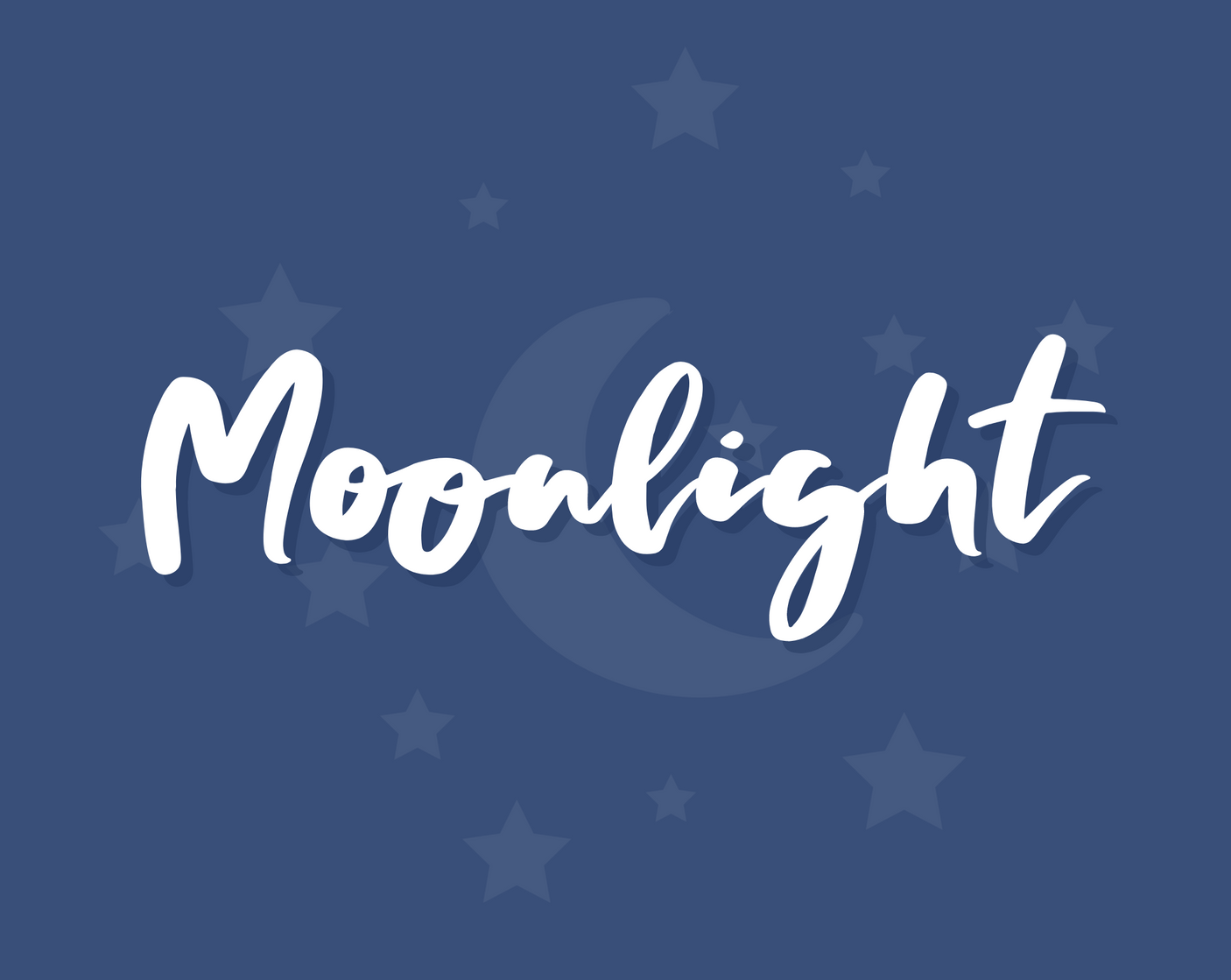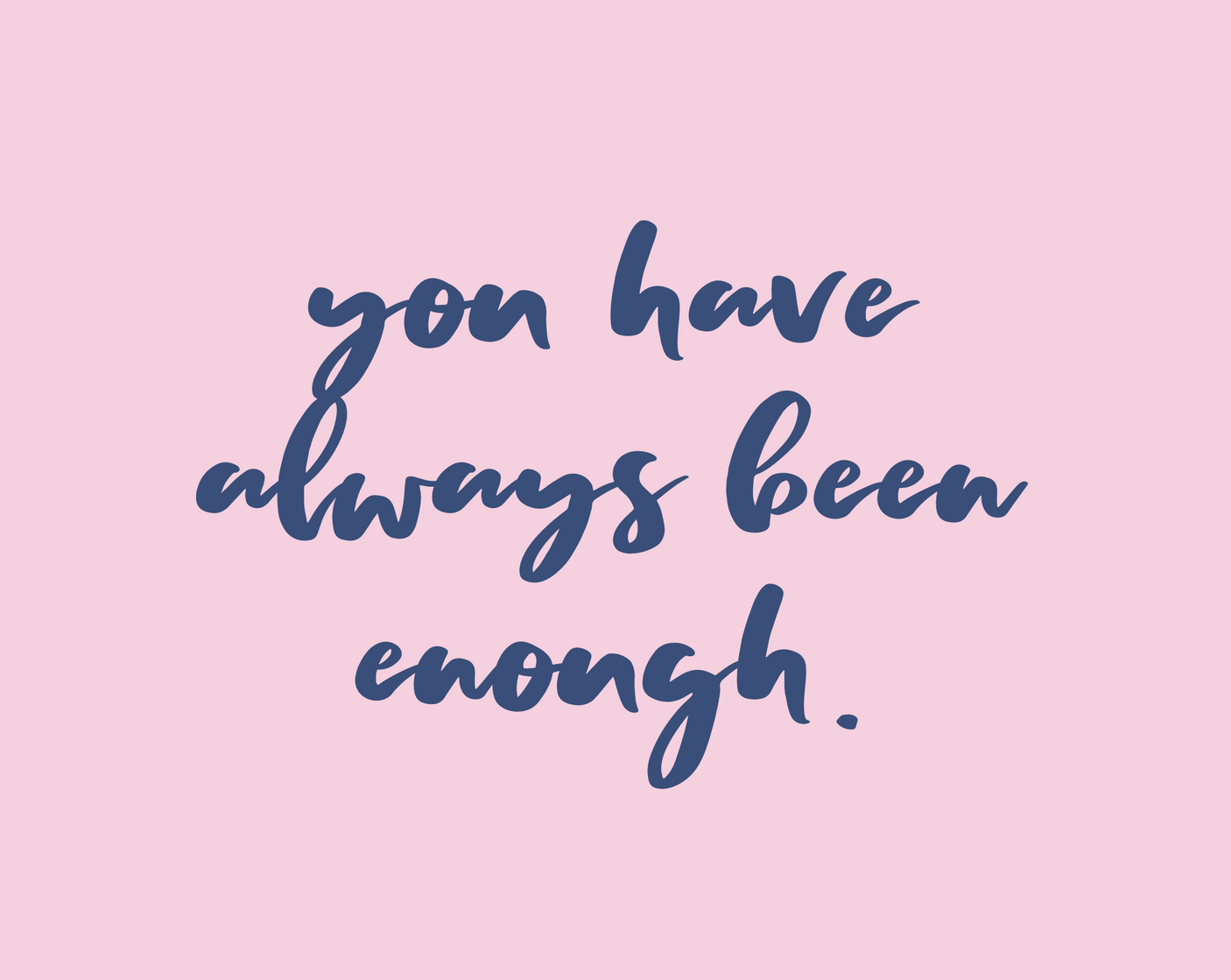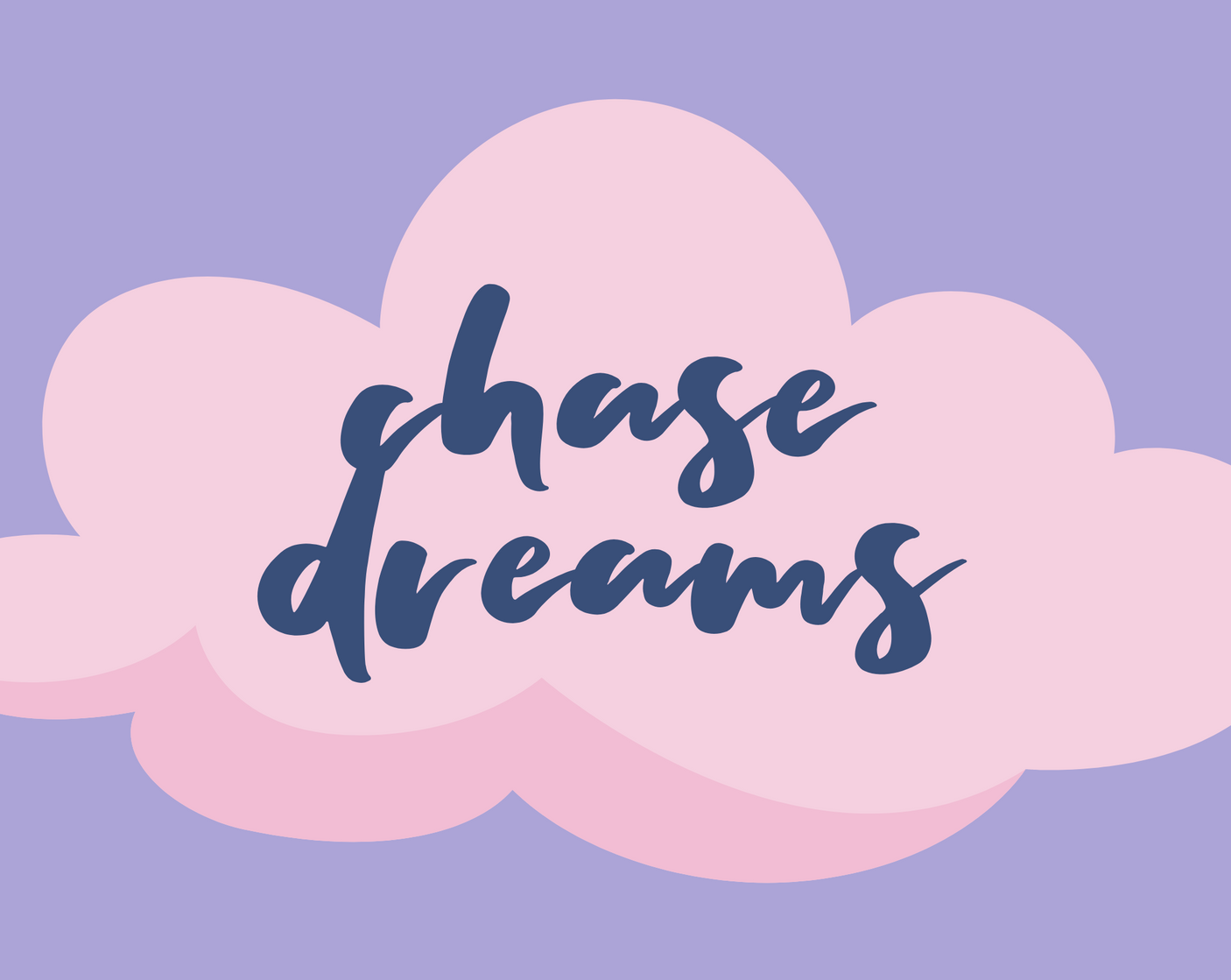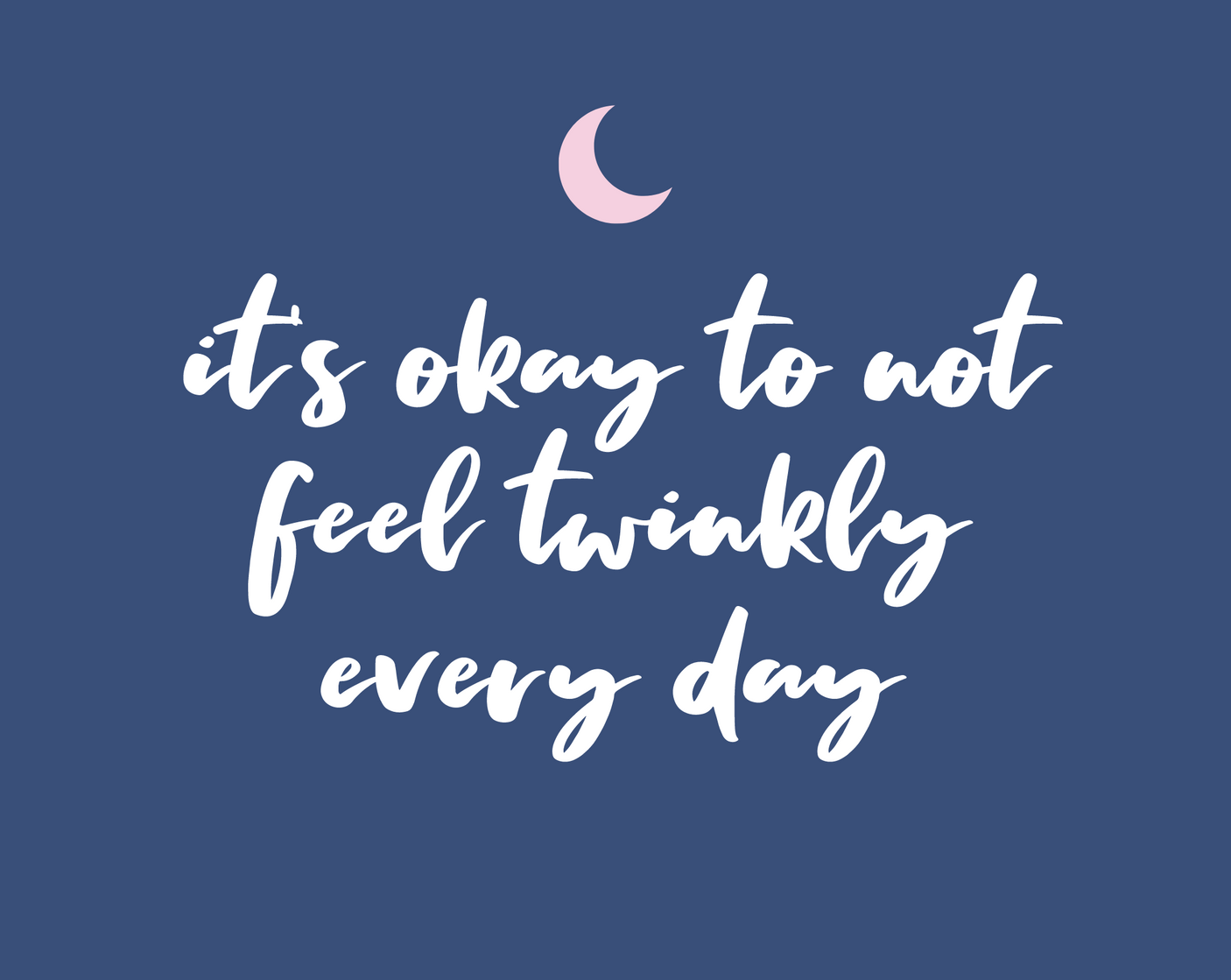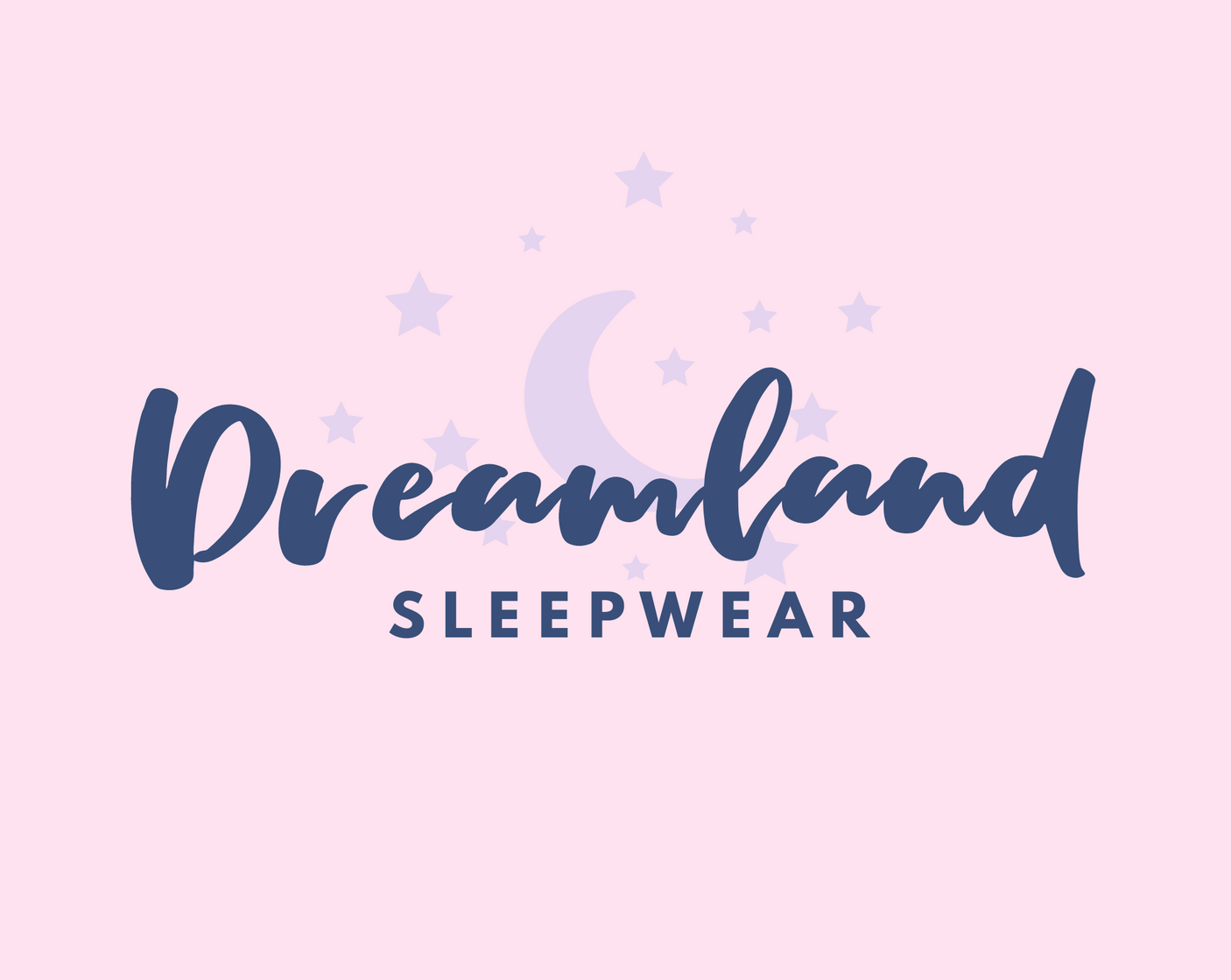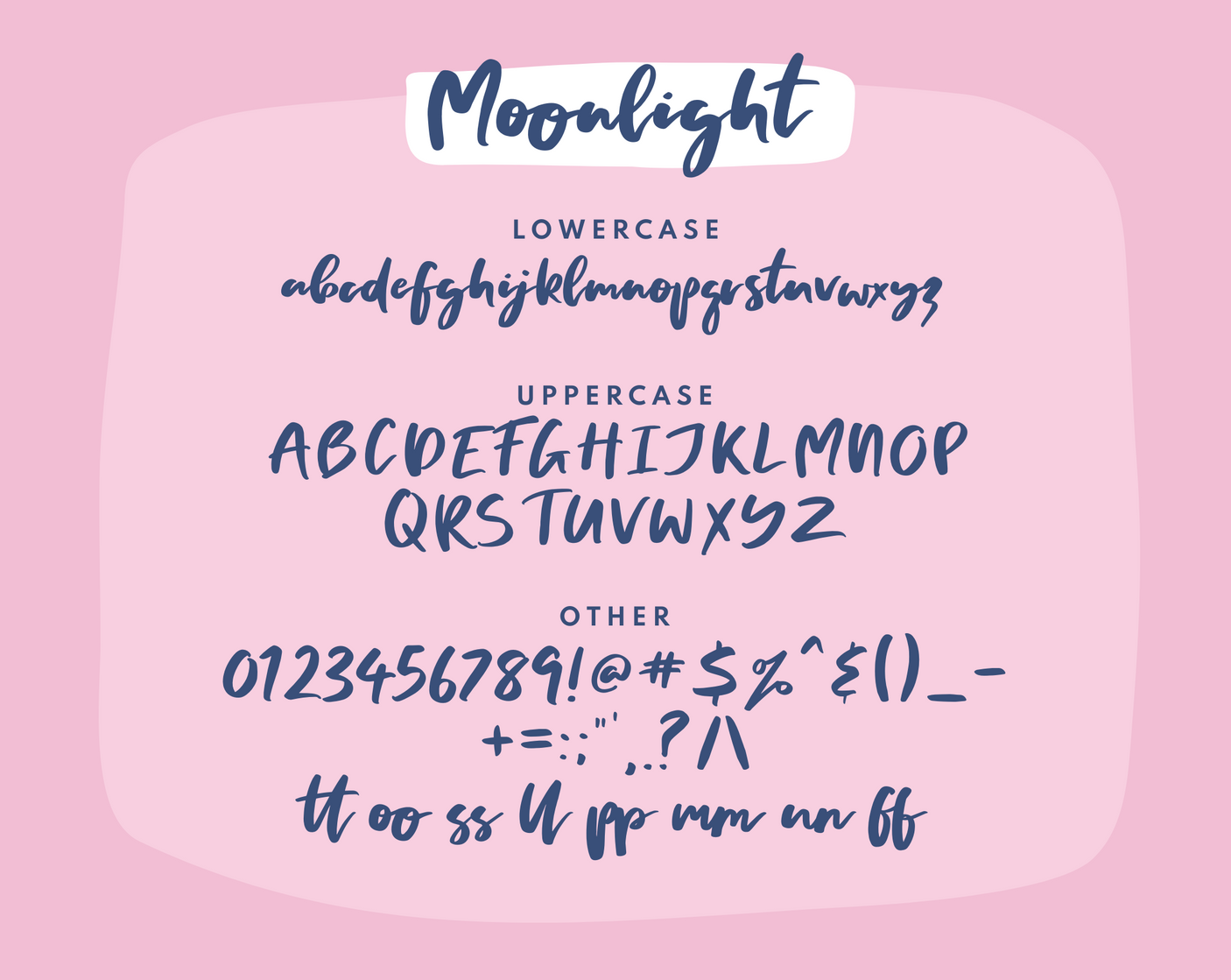
Moonlight Font
Step into the enchanting world of Moonlight, a bold brush script font that radiates charm and confidence. Perfect for adding a touch of whimsy to your designs, Moonlight features thick, bold strokes that mimic the look of hand-painted lettering, giving your text a lively and authentic feel.
Whether you're crafting cute and bold handwritten text, designing eye-catching logos, or creating striking headings, Moonlight has you covered. Its playful curves and strong presence make it an ideal choice for any project that needs a personal, artistic touch.
With Moonlight, your designs will shine bright, capturing attention and leaving a lasting impression. Let this font light up your creative projects and bring your ideas to life with its unique and captivating style.